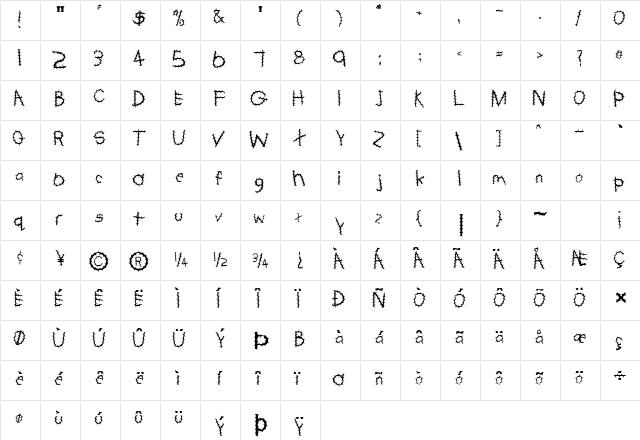
Primer-Spiked Normal
Design Context for Primer-Spiked Typeface
Primer-Spiked is a composed and adaptable typeface that performs quietly and consistently across a wide range of design contexts.